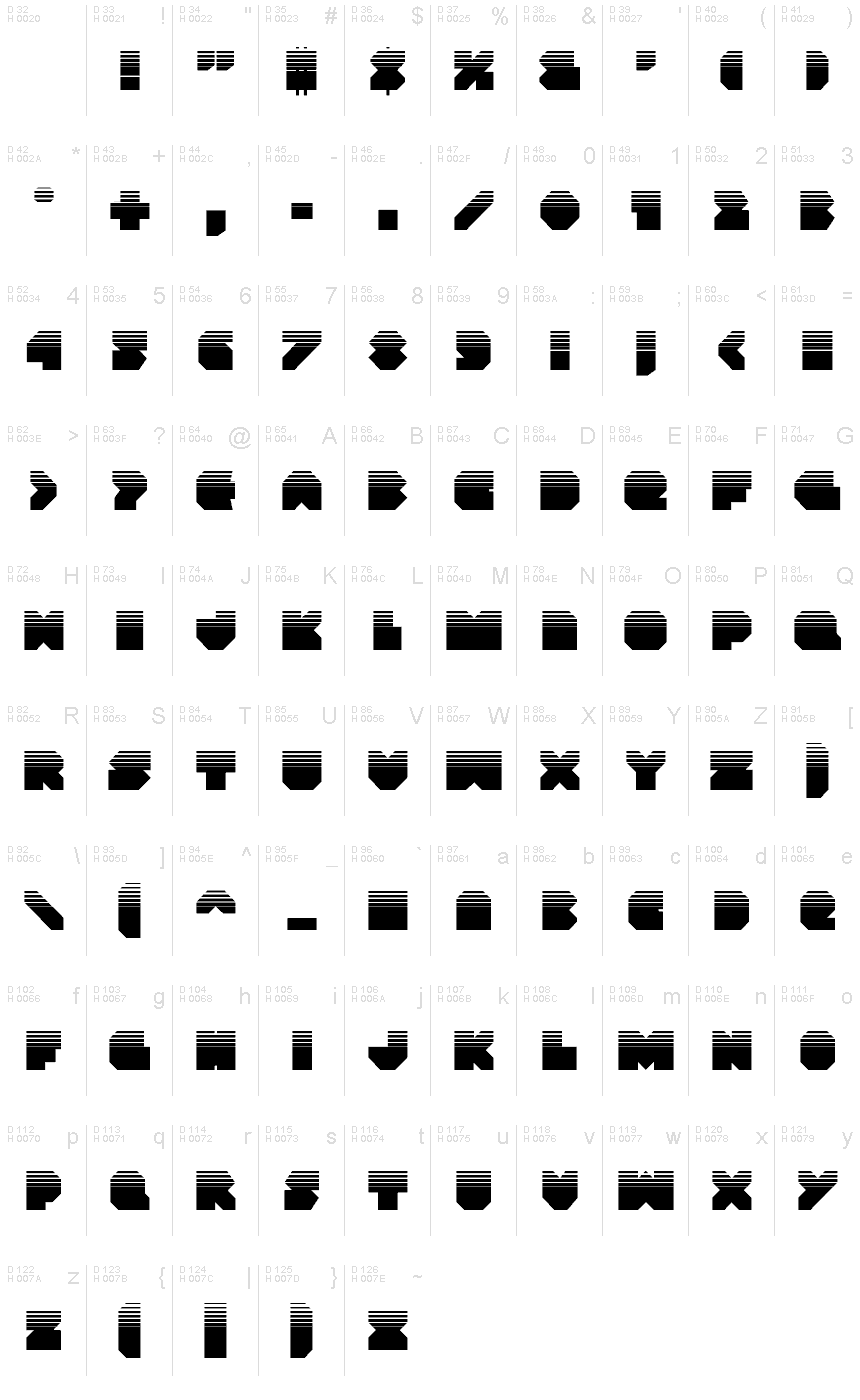
VX Rocket Halftone
VX Rocket Halftone font by Iconian Fonts is a techno display font characterized by bold presence, an expanded width, and a modern aesthetic. Its geometric design with a high-tech appearance aligns all the characters in a uniform structure that delivers an eye-pleasing layered design.